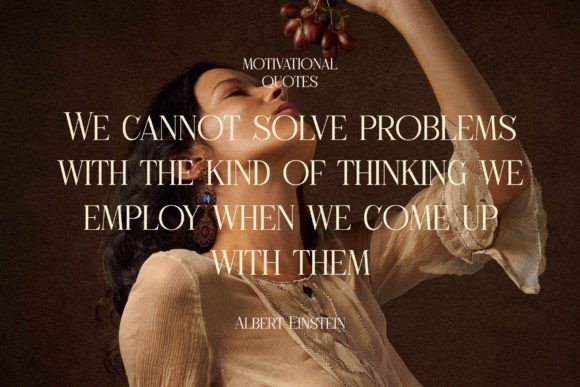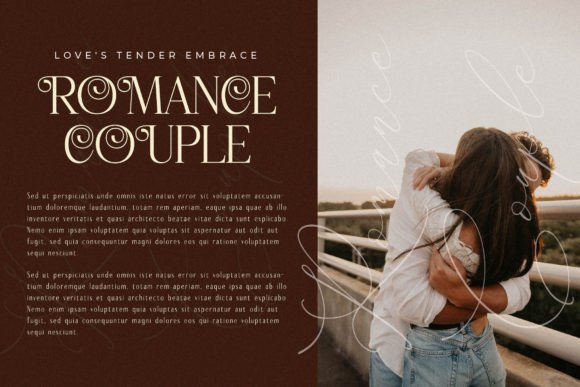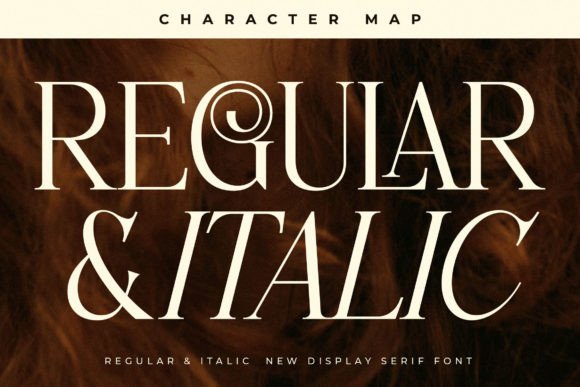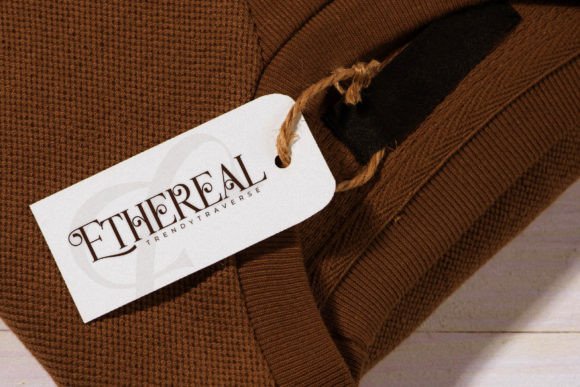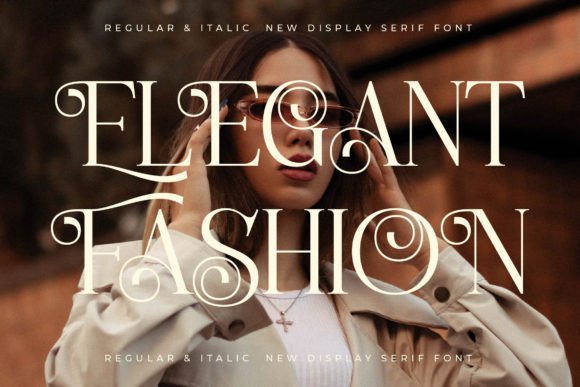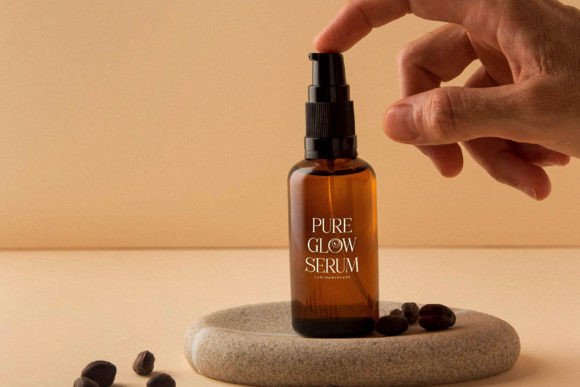
Introduction to Holage Font
Have you ever stared at a blank page, waiting for that perfect font to strike inspiration? For designers, finding the right typeface can be the difference between a mediocre and a magnificent creative project. And when that moment arrives, it’s like a symphony of elegance and sophistication.
Enter Holage Font, a modern and classic serif typeface that is sure to elevate your next design. With its unique style and modern look, Holage Font is the perfect choice for an elegant and luxurious logo, book or movie title design, fashion brand, magazine, clothes, lettering, quotes, and so much more.
Key Features of Holage Font
- High-quality font with a transparent background, ideal for creative projects and design resources.
- Features a unique, modern design with a clean and minimalist aesthetic.
- Perfect for use in logos, branding materials, and other design elements requiring a clean and sophisticated look.
Honest Review: Holage Font
As a designer, I’m always on the lookout for high-quality design resources to elevate my creative projects. I recently stumbled upon the Holage Font, and I must say it’s been a great addition to my design arsenal.
Here are some of the things that I think work well:
- ✨ High-quality design: The Holage Font is well-crafted and visually appealing, making it perfect for a variety of design applications.
- ⚠️ Limited font styles: While the Holage Font is a solid choice, it’s not as extensive as some other font collections.
- ⚠️ Not suitable for complex designs: Due to its simplicity, the Holage Font may not be the best choice for intricate or highly detailed designs.
Tips for Getting the Most Out of Holage Font
For the best results, use Holage Font with a transparent background to create a seamless design. You can also experiment with different font sizes and colors to add visual interest to your creative project. Additionally, use Holage Font in combination with other design elements to create a unique design resource.
Holage Font is commonly used in design projects that require a high-quality, elegant font. Some common use cases include creating business cards, brochures, and presentations. The font is also suitable for use in digital design projects, such as website headers and social media graphics.